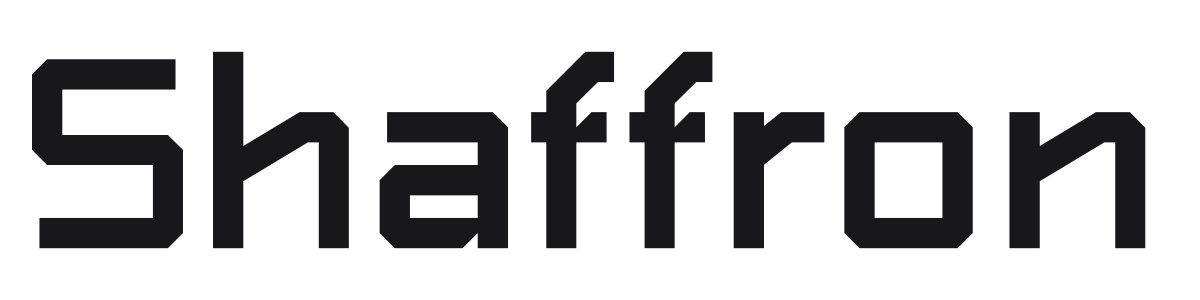
Shaffron
Shaffron is a bold geometric sans built from squared, modular strokes with softly clipped corners that read as distinctly digital. The low stroke contrast and compact proportions give it a dense, purposeful weight. It works well for branding, headlines, and anywhere a clean but edgy technical aesthetic is needed.